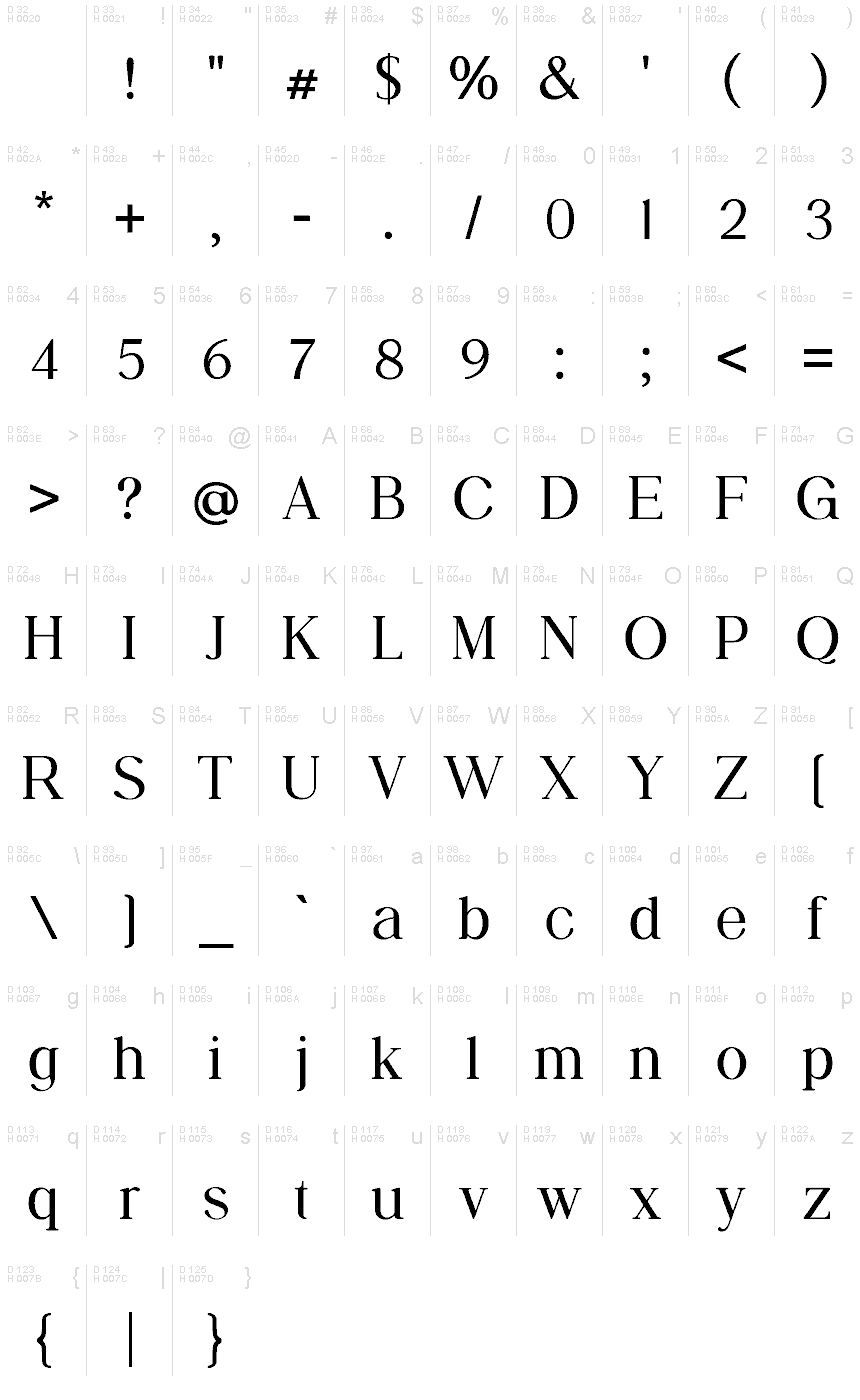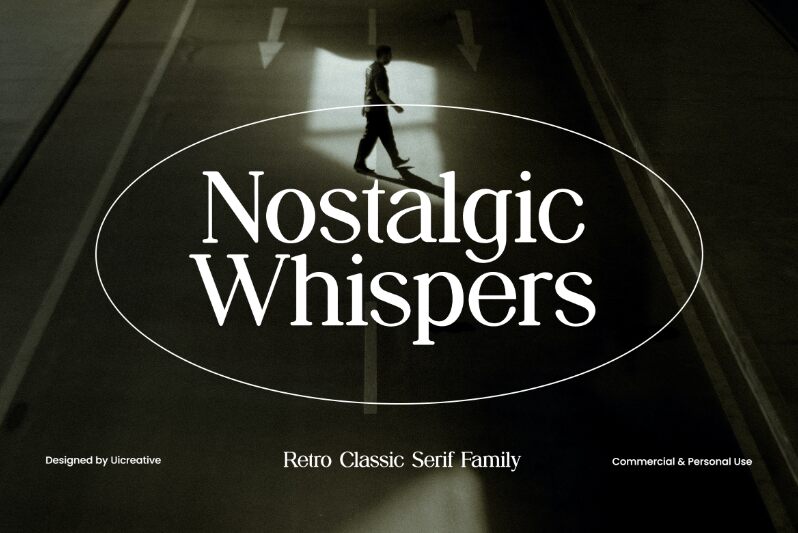
Nostalgic Whispers Regular
Nostalgic Whispers font by UI Creative is a timeless and sophisticated serif font with an elegant edge. Its style is the perfect balance between something with an antique influence and a clean and fresh appearance. It manages to combine both present-day ideas of perfection as well as inspirations from the past making it suitable for classic projects in need of a modern upgrade.
This free serif font has everything that branding, advertising, packaging designs, book covers, magazine covers, newspapers, posters of all sorts, online posts, UX and UI designs might need. Even non-digital works will find it fitting such as business cards or invitation cards.